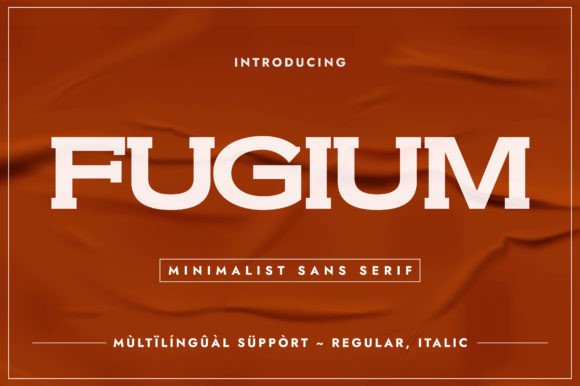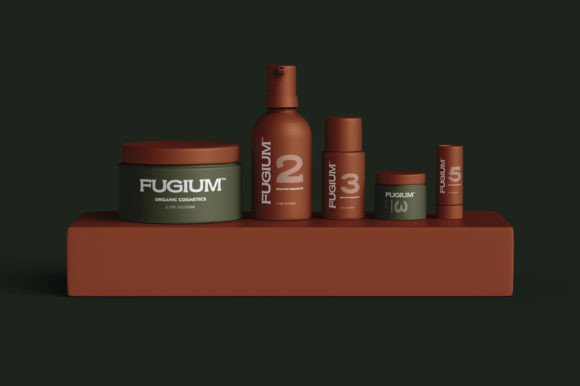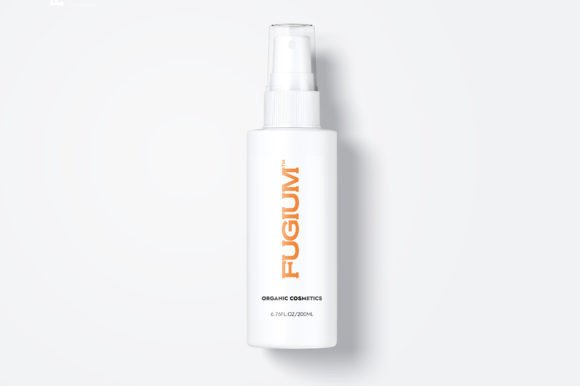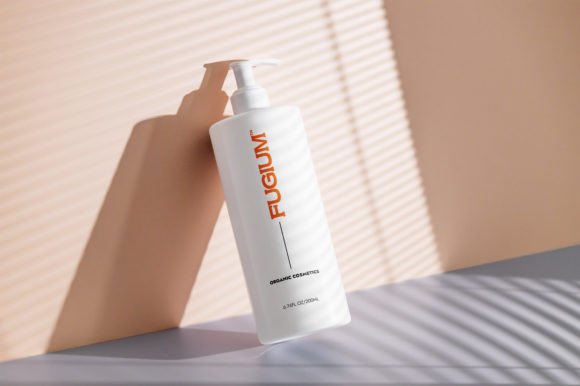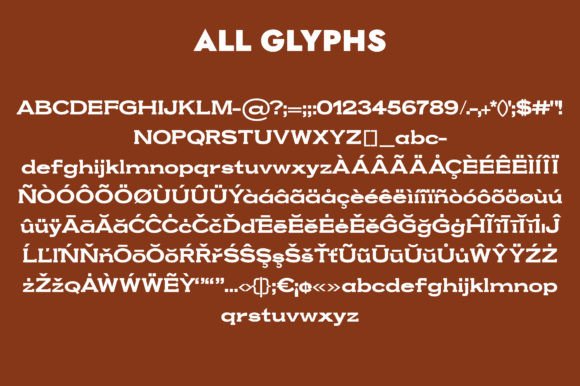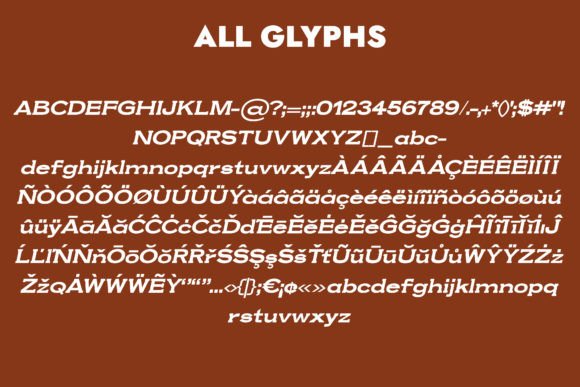
Fugium
Fugium: An Elegant and Wide Slab Serif Font
Fugium is an elegant, clean, and wide slab serif font that’s designed to grab viewers’ attention. This versatile typeface works perfectly for various applications, from packaging and perfume bottles to cosmetics and book covers, and much more.
Key Features of Fugium
• Elegant Design: Offers a sophisticated and refined look.
• Clean Style: Features clear, uncluttered letterforms.
• Wide Structure: Provides excellent visibility and impact.
• Attention-Grabbing: Makes designs stand out effectively.
Best Uses for Fugium
Thanks to its distinctive characteristics, Fugium works especially well for:
When using Fugium in your designs, keep these tips in mind:
• Use for headlines or short text to showcase its elegant and wide style.
• Try different sizes to make the most of its attention-grabbing features.
• Pair with simpler fonts for body text to create balance.
• Let its clean design enhance luxury and premium projects.
To sum up, Fugium is an excellent choice for designers seeking an elegant and wide slab serif font that commands attention. Its clean and sophisticated design makes it perfect for premium projects. Whether you’re creating packaging, designing perfume bottles, or developing cosmetics branding, Fugium offers the perfect mix of elegance and impact.
Moreover, Fugium’s distinctive design allows it to shine in contexts where sophistication is key. For instance, from book covers to product labels, this font can elevate your projects with its refined style. Also, its wide yet elegant appearance works particularly well in designs that aim to grab attention while maintaining class.
In conclusion, Fugium truly captures the essence of elegant design in slab serif typography. Its versatility across different applications shows how well it can serve various creative needs. Therefore, for those wanting to add a touch of sophisticated charm to their work, Fugium can enhance any design with its unique style. Ultimately, it’s perfect for designers aiming to make an elegant, attention-grabbing impact across premium creative projects.